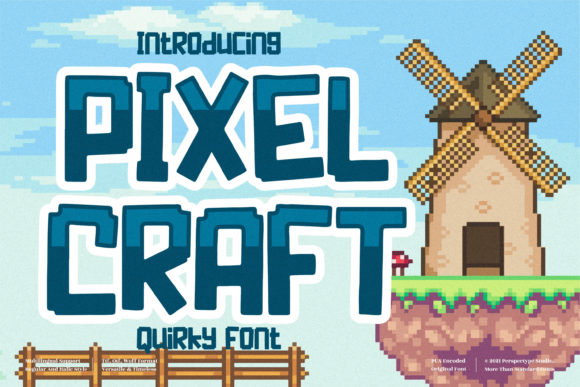
Dive into the world of Pixel Craft, a captivating display font that breathes life into your creative endeavors. Designed by Perspectype, this font is a playful masterpiece that combines the charm of childhood with the authenticity of genuine expression. Its unique style makes it the perfect choice for bringing a touch of whimsy to any children's activity or school project.
With Pixel Craft, your words take on a life of their own, dancing across the page with an infectious energy. It's a font that captures the imagination, inviting you to explore the boundless realms of creativity. From playful invitations to eye-catching posters, Pixel Craft adds a touch of magic to every project it graces.
Immerse yourself in a symphony of joy as you craft whimsical designs that resonate with the hearts of children. Let Pixel Craft be your creative companion, guiding you through a journey of imagination and wonder. Discover the joy of self-expression and let your creativity soar with this enchanting display font.